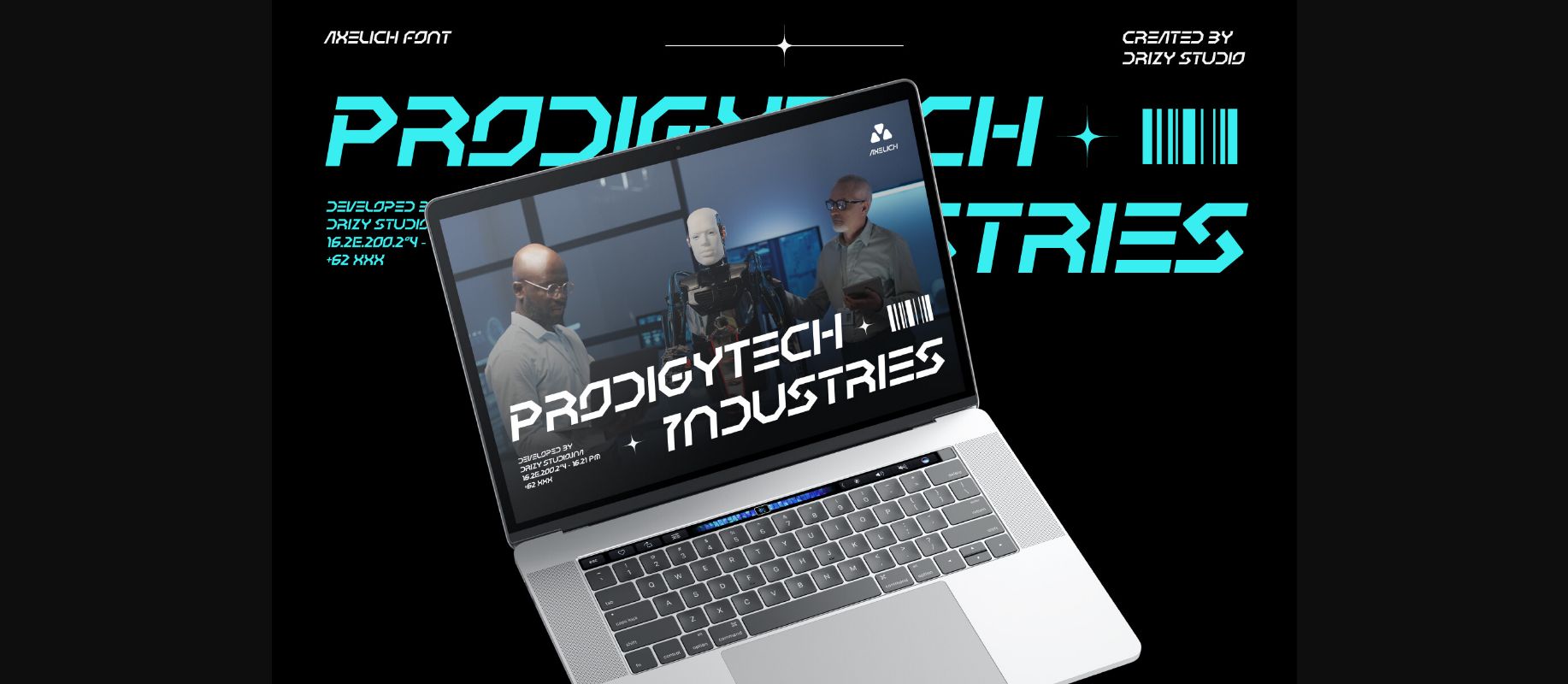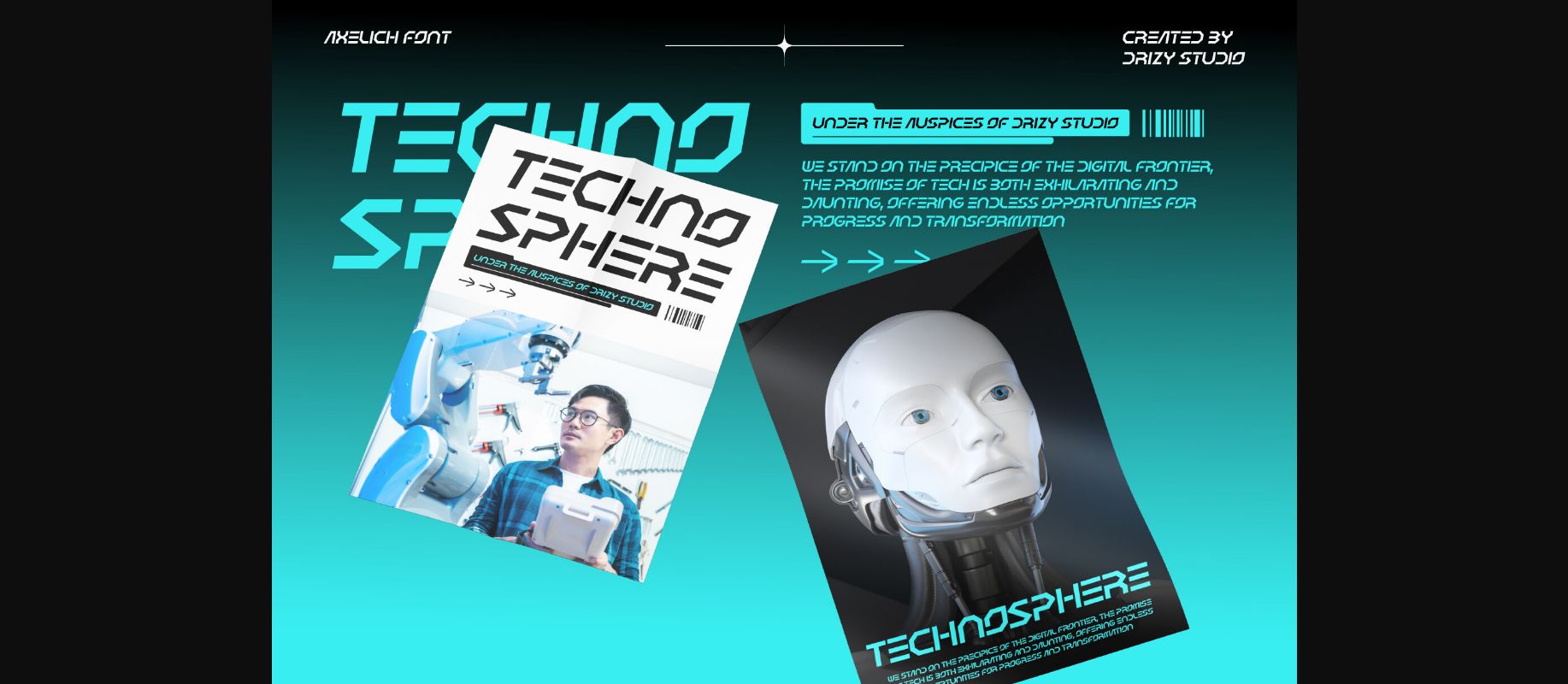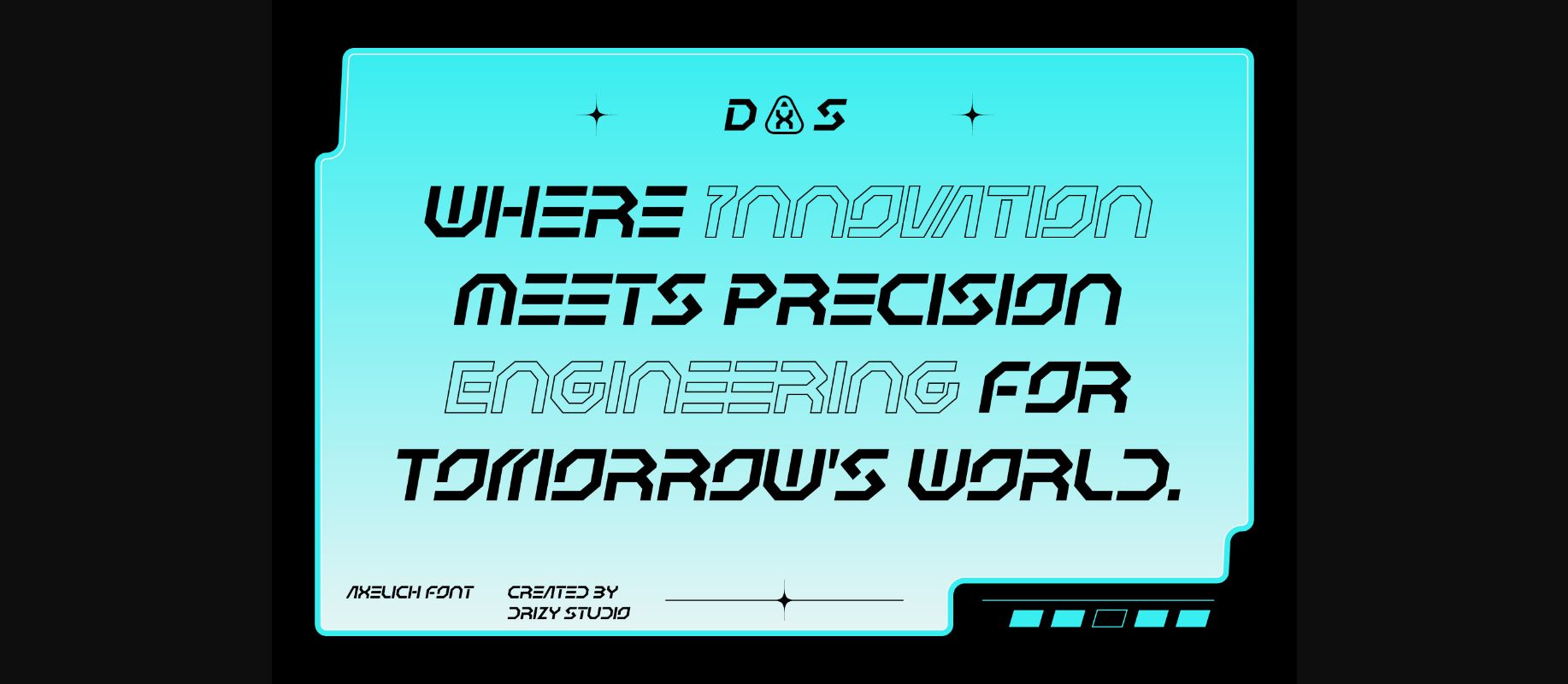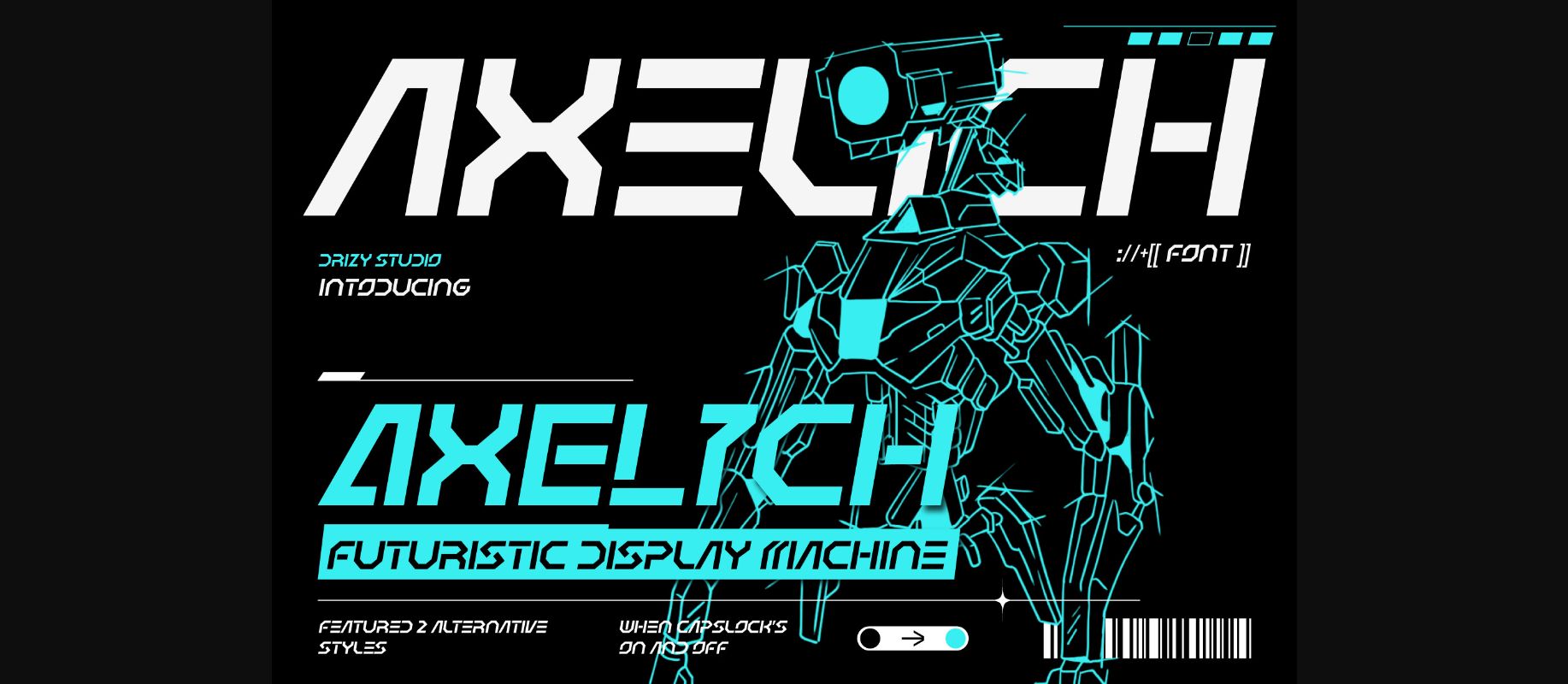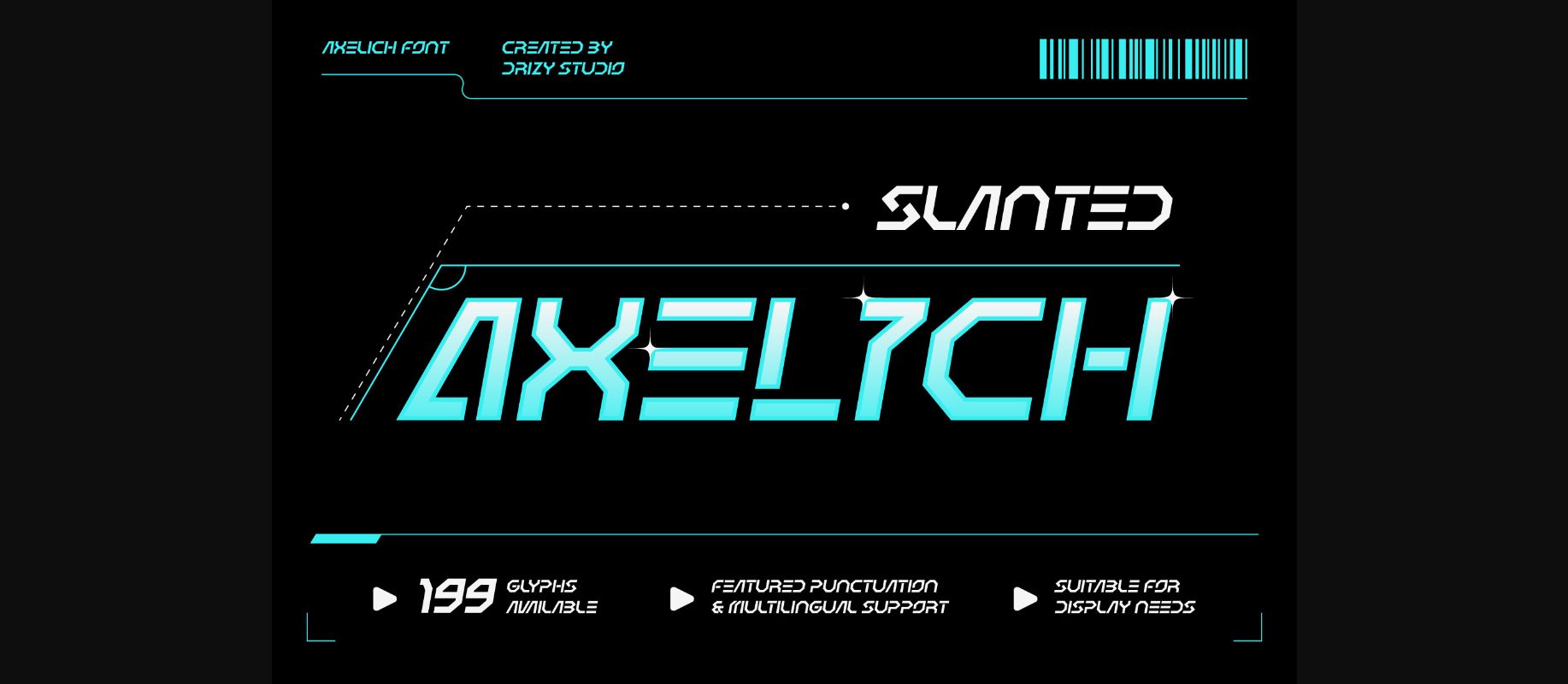
About Axelich Font
Introducing Axelich, a cutting-edge typeface that pushes the boundaries of design and innovation. Axelich is a Futuristic Display Machine Font that seamlessly blends technology, modern aesthetics, and readability. Crafted with precision and creativity, Axelich also brings a monster & kaiju vibe to the project, making it perfect for those who strive to create a monster visual impact.